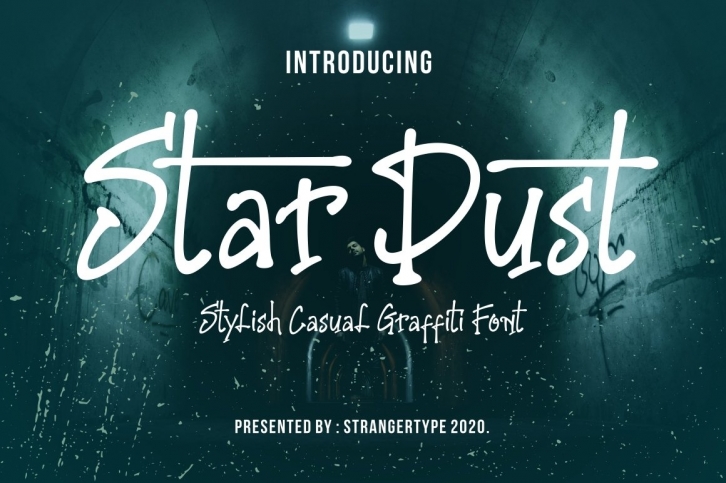
Stardust is a trendy and unique font with an authentic style. It was designed by Strangertype and it's a great choice for creative people who need such a font. It was released on April 1, 2020 and the file size is 15.52 MB. Stardust will add an organic vibe to any design idea!